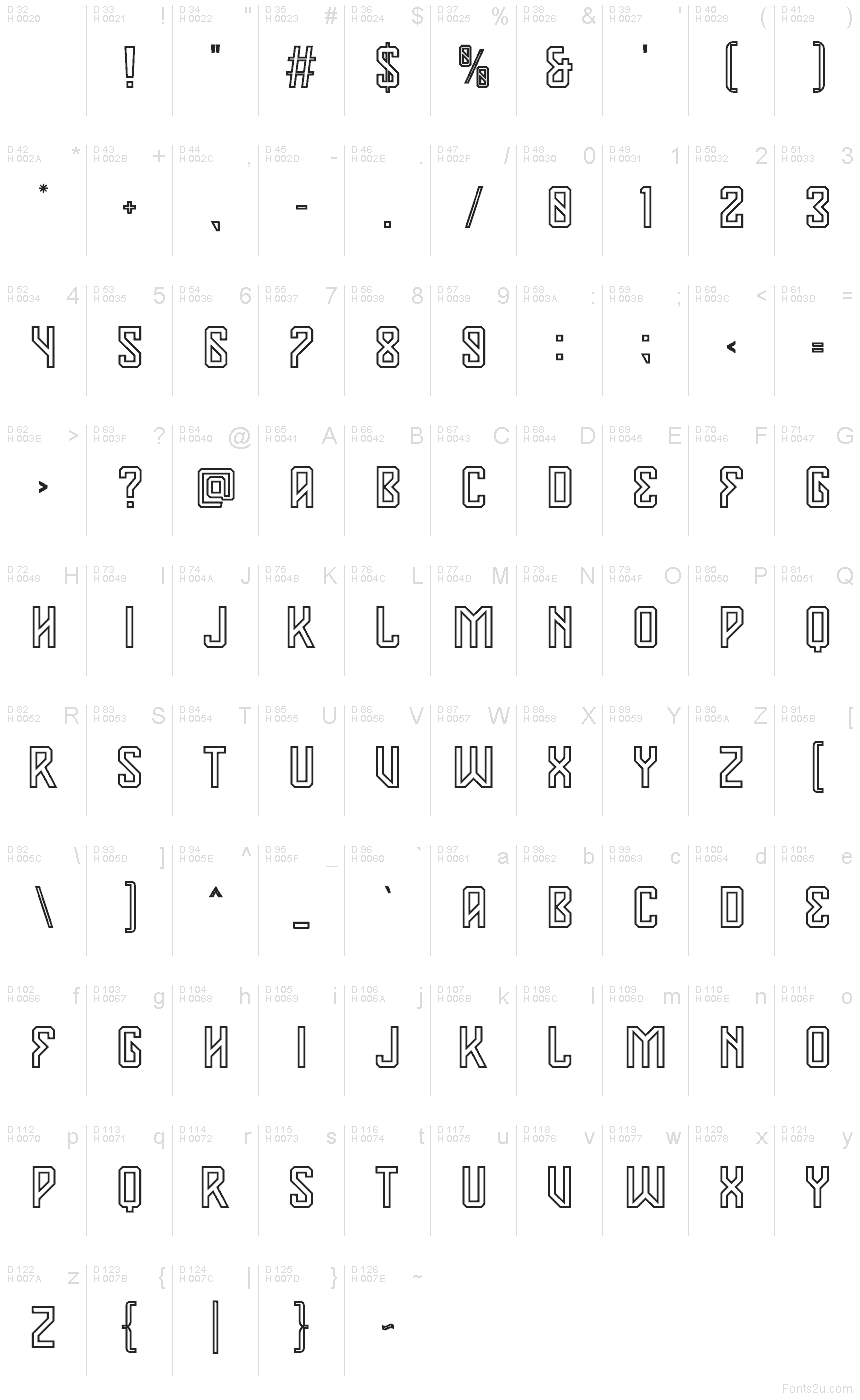
Deventer PERSONAL USE 4
Deventer 4 font by Trequartista Studio is a display font with an outlined, techno style. Its condensed appearance along with its geometric, angular characters have an authentic futuristic and industrial vibe. A constructed design of a mechanical feel colors this font which captures and maintains attention when used in large readable projects.
Deventer 4 is free, an added value for designers who use it in logotypographic projects such as logos of industrial companies and factories, automotive brands, car repair shops, manufacturing businesses, glass accessories manufactures. Posters design and book packing for Sci-Fi novels are perfect examples too.